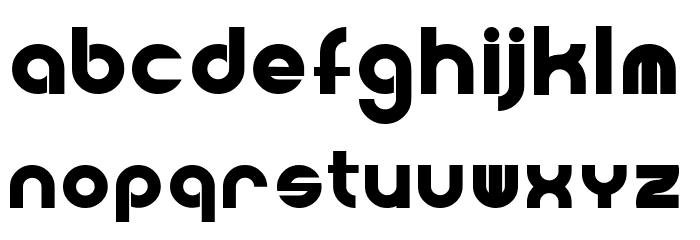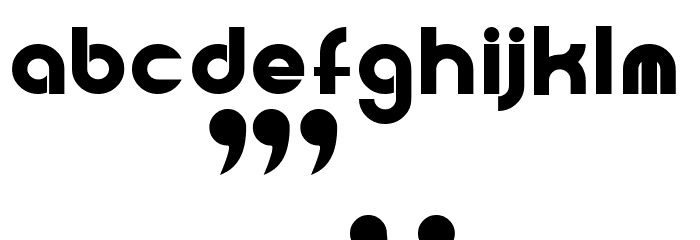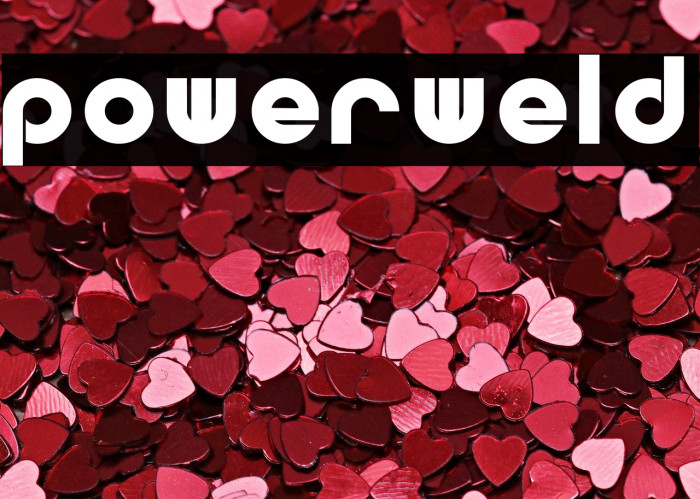
Powerweld Font
This font features a bold and geometric design with a modern aesthetic. The characters are rounded and uniform, giving a cohesive and structured appearance. The lowercase letters have a consistent height and width, contributing to a balanced look. The font's style is clean and minimalistic, making it suitable for contemporary design projects. The boldness of the characters ensures high visibility and readability, while the geometric shapes add a touch of uniqueness and creativity. This font is ideal for making a strong visual impact in various design contexts.
A bold, geometric font with a modern and minimalistic style.
- Proposed Projects: Ideal for branding, advertising, headlines, and modern web design.